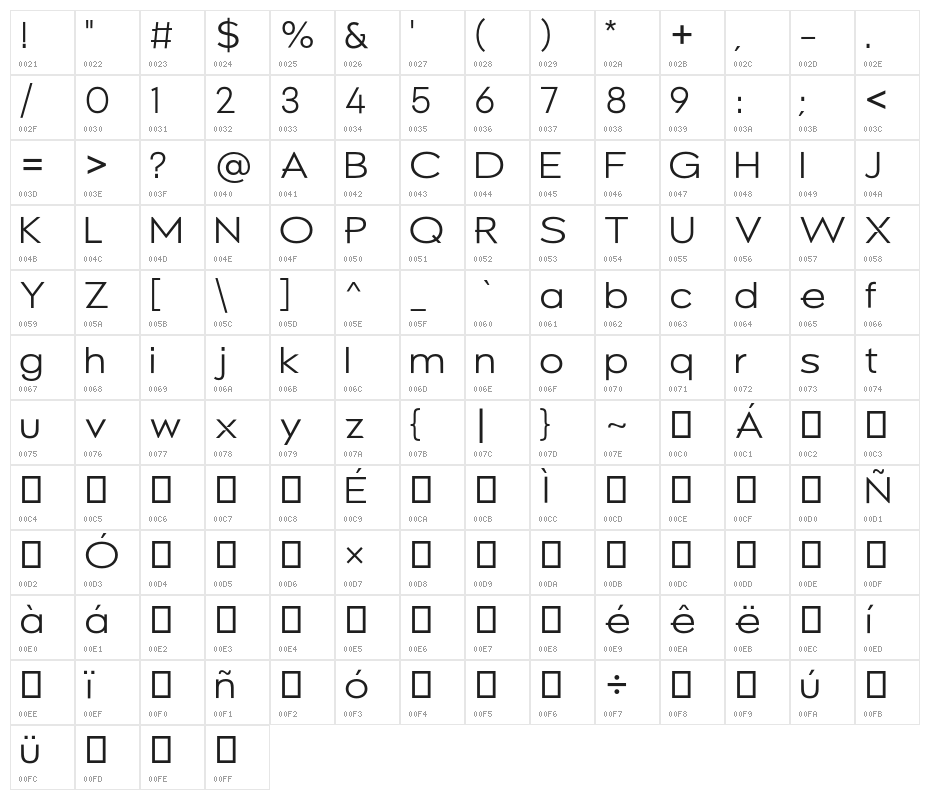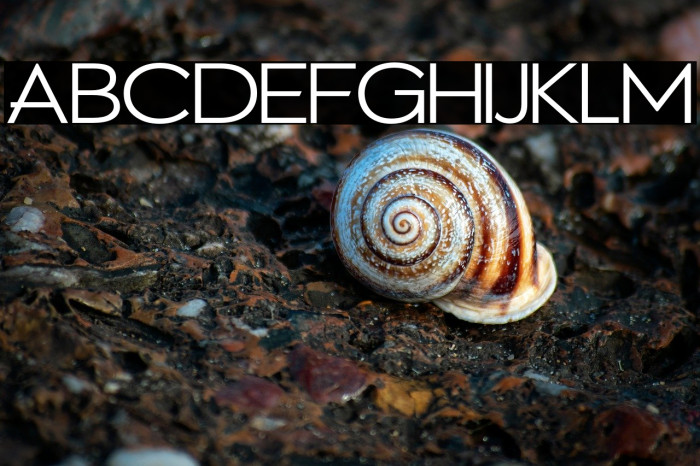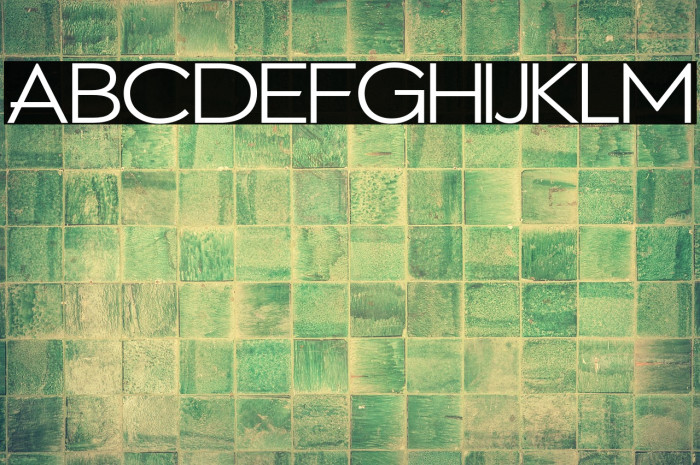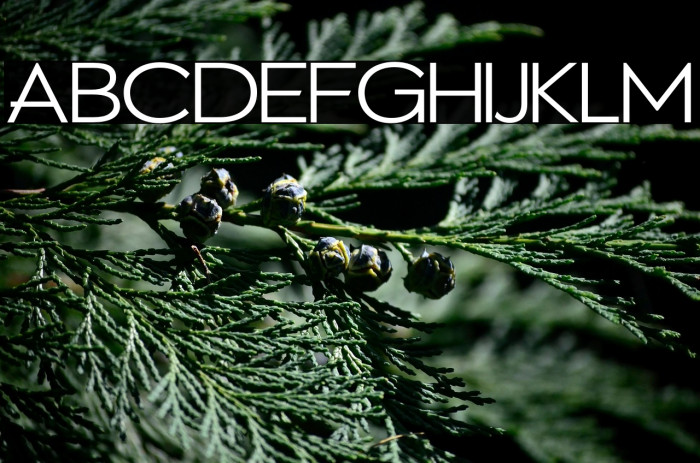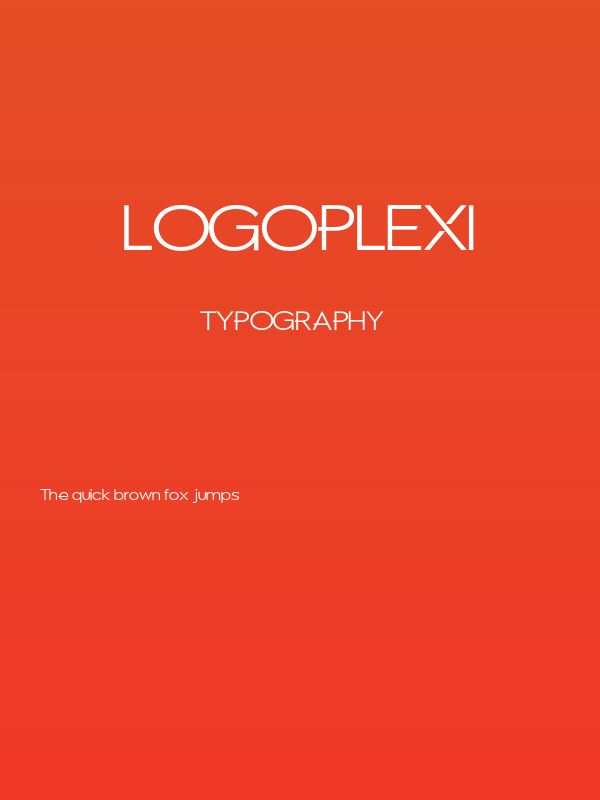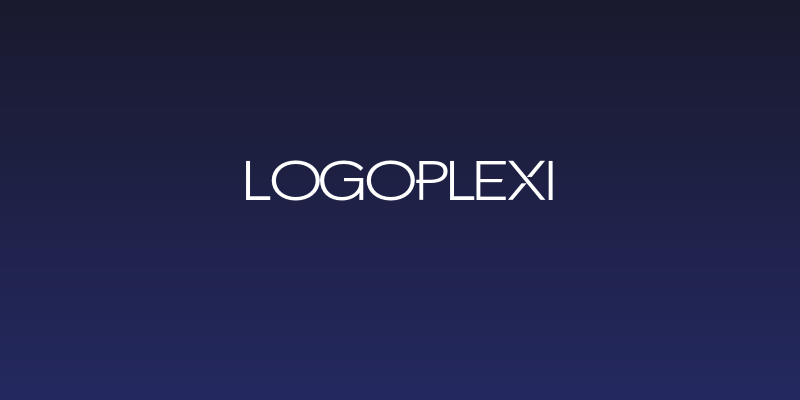
Logoplexi Font
Logoplexi Description
This font features a clean and modern sans-serif design with a geometric structure. The characters are well-balanced with consistent stroke widths, giving it a uniform appearance. The uppercase letters are bold and impactful, while the lowercase letters maintain a smooth and rounded aesthetic. The numerals are clear and easy to read, making them suitable for various applications. Special characters are included, providing versatility for different design needs. The overall style is contemporary, making it ideal for projects that require a sleek and professional look.
| Proposed Projects | Ideal for branding, corporate design, digital interfaces, and editorial layouts. |